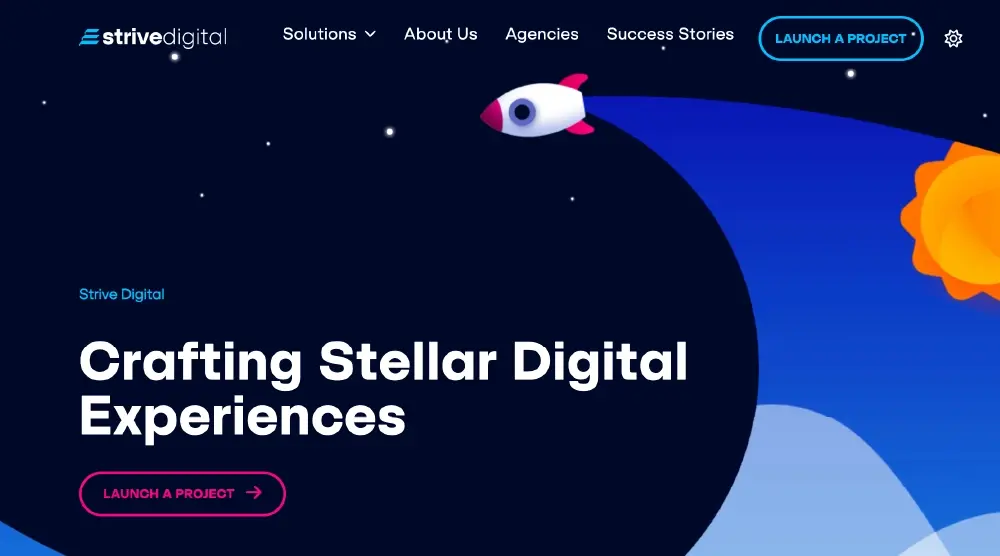
Strive Digital – Full-Service Digital Agency
Font: SFT Schrifted Sans (Regular, Bold).
Use case: Logo, website typography, branding, UI/UX.
About the Project:
Strive Digital builds lasting partnerships by delivering goal-driven solutions that exceed expectations. Their website embodies this approach, using SFT Schrifted Sans to create a sleek, modern look that enhances the clarity of their message. The typeface’s clean lines and structured forms reflect Strive Digital’s focus on delivering high-quality, data-driven digital experiences.
Why SFT Schrifted Sans?
SFT Schrifted Sans aligns perfectly with Strive Digital’s commitment to clear, effective communication. Its contemporary design not only supports their branding but also strengthens their ability to present complex digital solutions in a simple, approachable way.